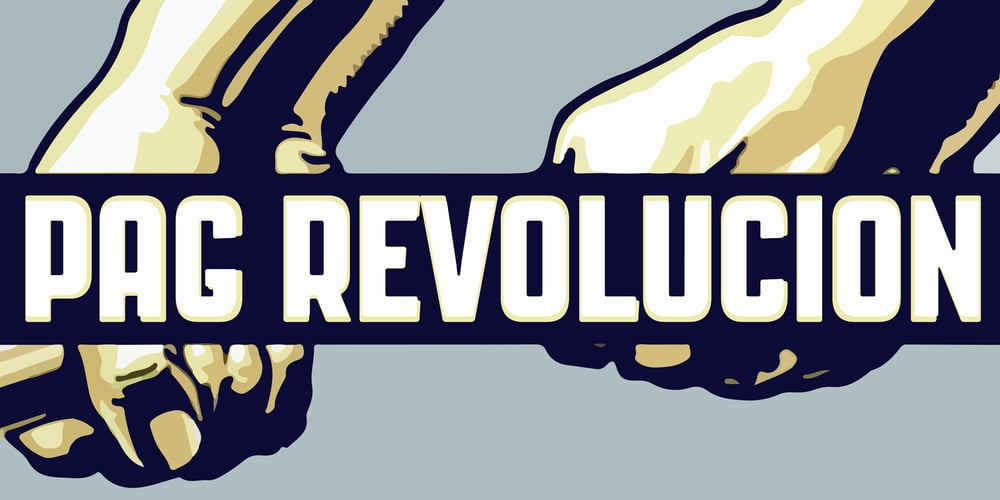
PAG Revolucion Font Family was designed by Ryoichi Tsunekawa and published by Prop-a-ganda. PAG Revolucion contains 1 styles and family package options. Prop-a-ganda offers retro-flavored fonts inspired by lettering on retro propaganda posters, retro advertising posters, retro packages all the world over. This is perfect font for your retrospective project. PAG Revolucion has a boyish mood compared to other fonts of Prop-a-ganda series. It has short legs and large head, but because of its simplicity, it is legible font. Perfect for all of display. In 2012, Extended and optimized for multipurpose font family named Revolution Gothic which has lowercase, multi-language accents, five weights and italics can be available from Dharma Type.